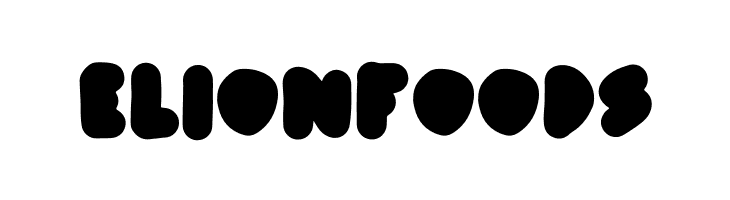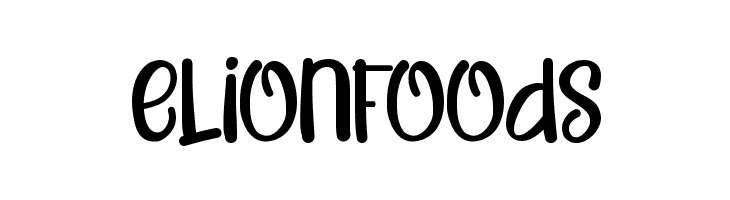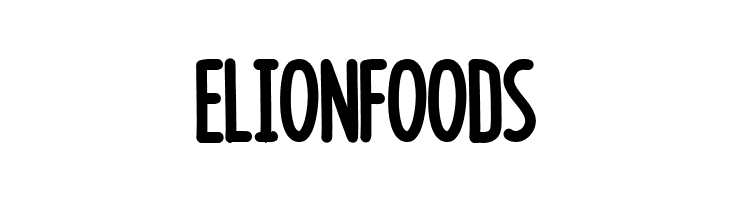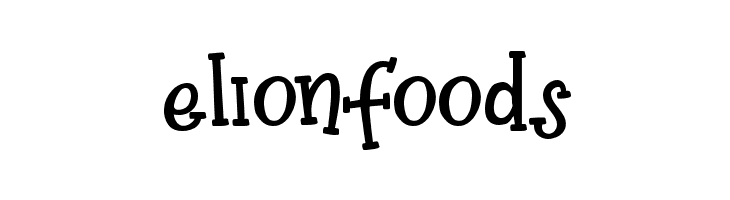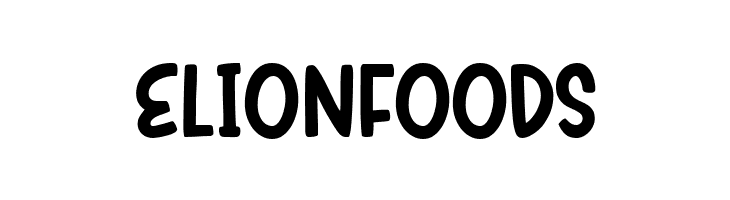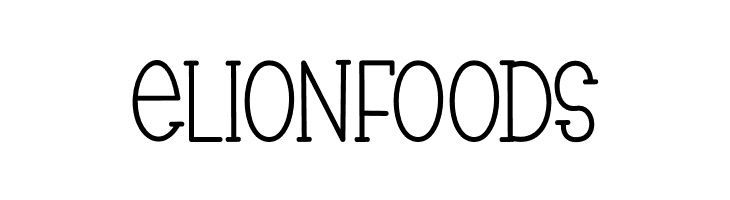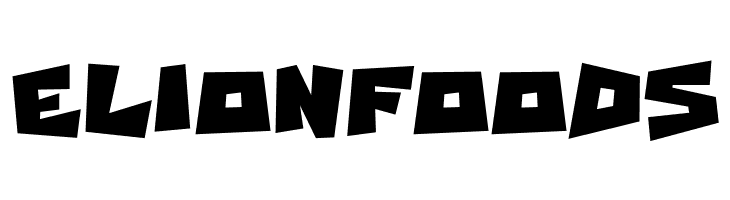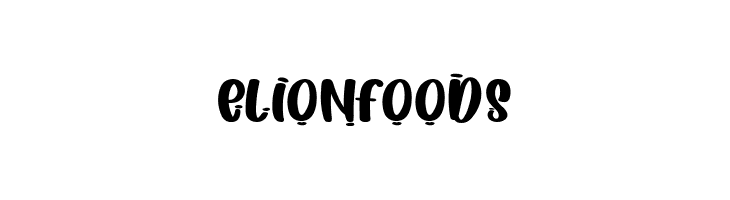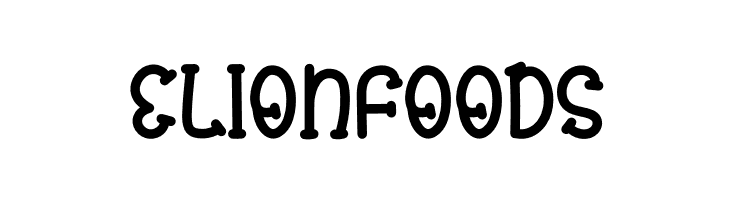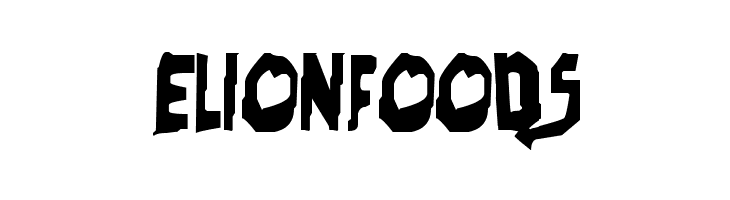
Cartoon Fonts (4,116)
Cartoon Fonts
Poornut Font
A playful, bold font with exaggerated curves and angles, ideal for creative projects.
Popcorn NOT included Font
Font by Jacob Fisher - www.pizzadude.dk
A playful, bold font with jagged edges and a hand-drawn aesthetic.
Poppy AOE Font
Font by Astigmatic One Eye Typographic Institute - Brian J. Bonislawsky - astigmatic.com
A playful, rounded font with whimsical, decorative elements.
PorangerAL Font
Font by Maniackers Design - www.mksd.jp
A playful decorative font with letters integrated into cartoonish face designs.
Postregular Regular Font
Font by Nico Muslib
A playful, bold font with a slight slant and consistent stroke width, perfect for informal designs.
pota font Font
A bold, abstract font with fluid, organic shapes and playful, whimsical design.
Potato Chips Font
Font by Khurasan
A playful, hand-drawn font with bold, textured strokes and a casual vibe.
Potato Chips Font
Font by Khurasan
A bold, playful, hand-drawn font with irregular strokes and a dynamic feel.
Potato Chips Font
Font by Khurasan
A bold, playful font with a hand-drawn, brush-like texture.
POTLOOT Font
A playful font made from pencil illustrations, perfect for creative projects.
Pottery Wheel Regular Font
Font by Niskala Huruf
A bold, playful handwritten font with rounded letterforms.
Power Breakfast DEMO Regular Font
Font by Hanoded
A playful, bold font with a hand-drawn style and unique symbols.
Power Dream Font
Font by niyos
A bold, playful handwritten font with a whimsical and dynamic style.
Power Lord 3D Font
A bold, 3D outlined font with a retro, impactful style.
POWER SELL Font
Font by zainstudio
A bold, handwritten font with a playful and whimsical style.
Powerhouse Era Font
Font by Lemon Line
A playful, bold font with a hand-drawn, energetic style.
Powerpuff Girls Z Font
william jhordy